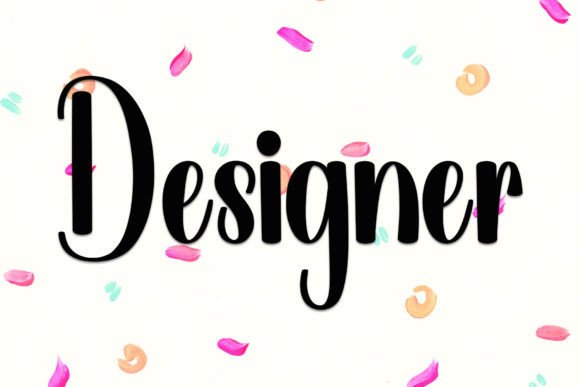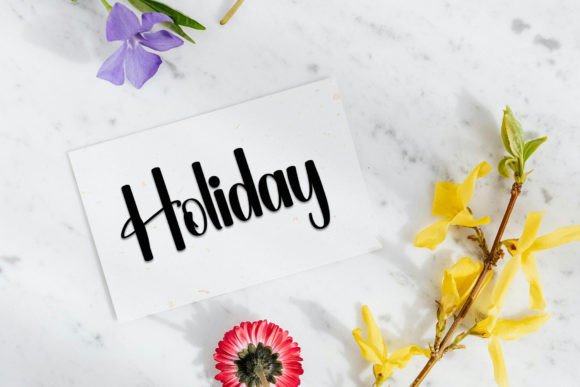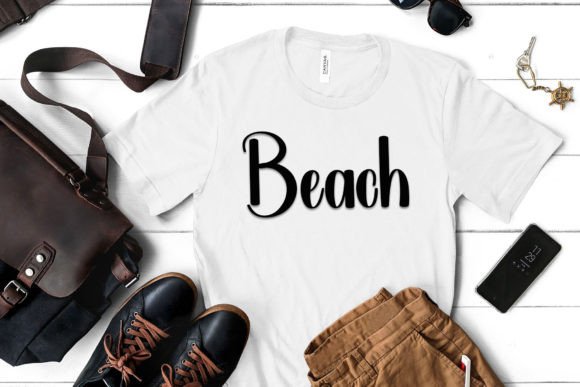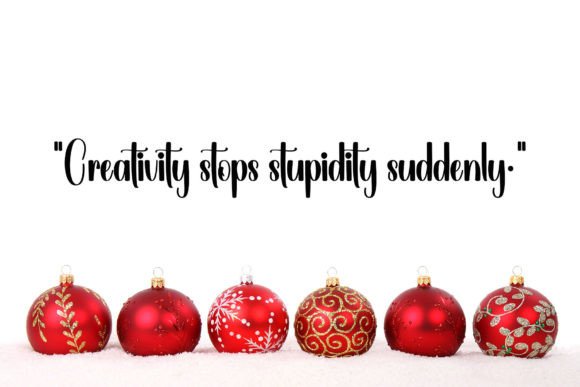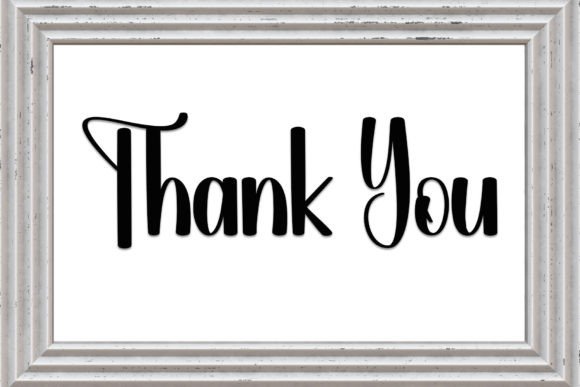
Heart Font: The Perfect Choice for Adding a Touch of Warmth and Personality to Your Designs
Are you looking for a font that can add a touch of freshness and casual elegance to your design projects? Look no further than Heart Font. This charming handwriting font is imbued with a sense of warmth and personality, making it perfect for a wide range of applications, from branding and invitations to social media graphics and more.
The Characteristics of Heart Font
Heart Font is a beautifully crafted handwriting font that features fluid strokes and organic lines. These characteristics give the font a laid-back vibe that is perfect for designers who want to add a touch of whimsy and charm to their work. The font’s casual elegance makes it suitable for a wide range of projects, from formal events to social media posts.
What Makes Heart Font So Versatile?
One of the things that sets Heart Font apart from other fonts is its versatility. The font’s fluid strokes and organic lines make it perfect for a wide range of design projects, including:
• Branding: Use Heart Font to add a touch of personality to your brand’s logo or marketing materials.
• Invitations: Heart Font is perfect for creating beautiful and unique invitations for weddings, parties, and other special events.
• Social Media Graphics: Add a touch of warmth and personality to your social media posts with Heart Font.
• Packaging: Use Heart Font to add a personal touch to your product packaging.
Why Designers and Crafters Love Heart Font
Designers and crafters love Heart Font for many reasons. Here are just a few:
• Easy to Read: Heart Font is easy to read, even at small sizes, making it perfect for use in a wide range of applications.
• Highly Versatile: Heart Font can be used for both formal and informal projects, making it a great addition to any designer’s font library.
• Unique and Eye-Catching: Heart Font is a unique and eye-catching font that is sure to grab attention.
Tips for Using Heart Font in Your Designs
Here are a few tips for using Heart Font in your designs:
• Use it as a Display Font: Heart Font is perfect for use as a display font, where it can be used to grab attention and add a touch of personality to your design.
• Pair it with Other Fonts: Heart Font pairs well with a wide range of other fonts, making it easy to create beautiful and unique typography.
• Experiment with Different Colors: Heart Font looks great in a wide range of colors, so don’t be afraid to experiment and find the perfect color for your design.
In conclusion, Heart Font is a charming handwriting font that is perfect for designers and crafters who want to add a touch of warmth and personality to their designs. With its fluid strokes and organic lines, Heart Font is sure to grab attention and leave a lasting impression. Whether you’re working on a branding project, creating invitations, or designing social media graphics, Heart Font is a great choice.